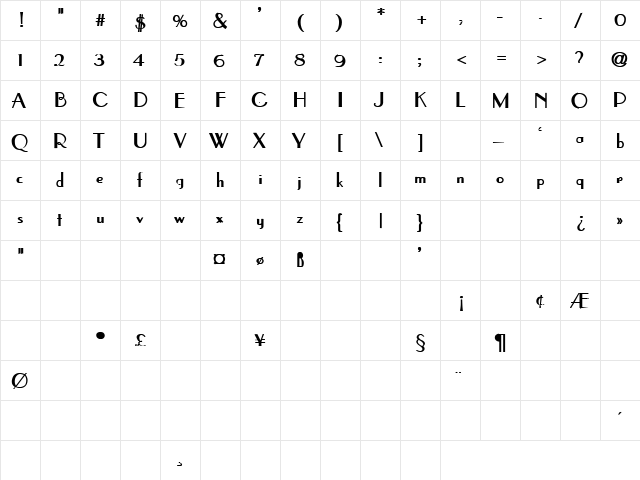
Coke 10 Bold Font Preview
Coke 10 Bold
Coke 10 Bold Font Details
Design Context for Coke 10 Typeface
Coke 10 is a composed and adaptable typeface that performs quietly and consistently across a wide range of design contexts. Its bold stroke weight gives it real presence on the page.